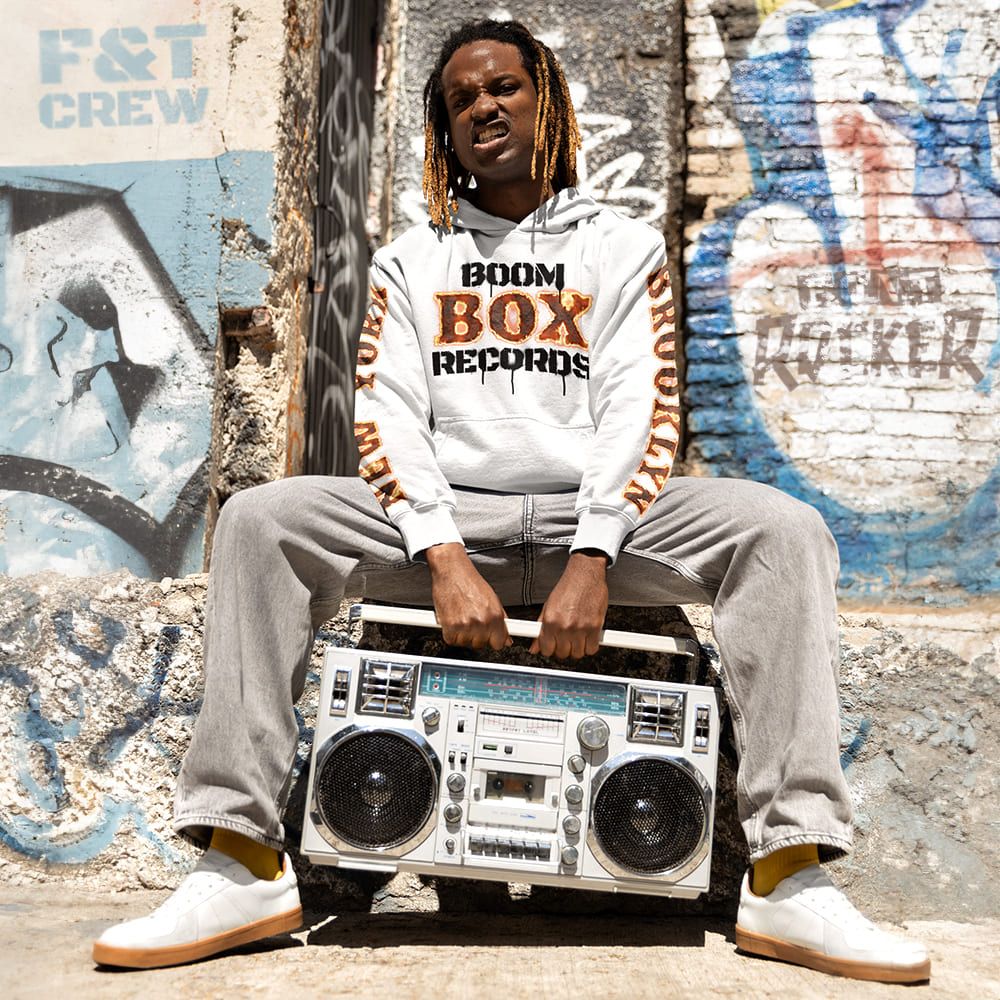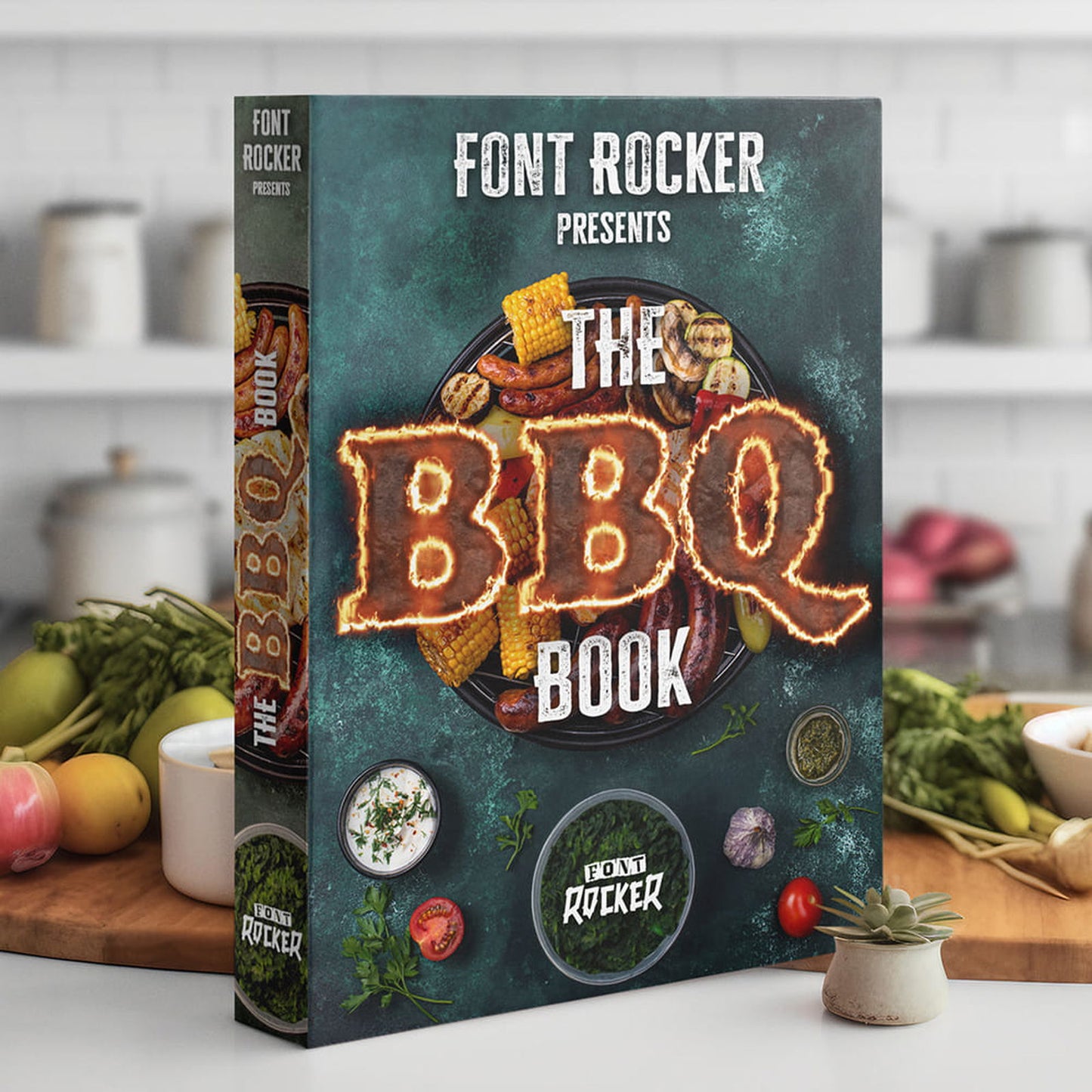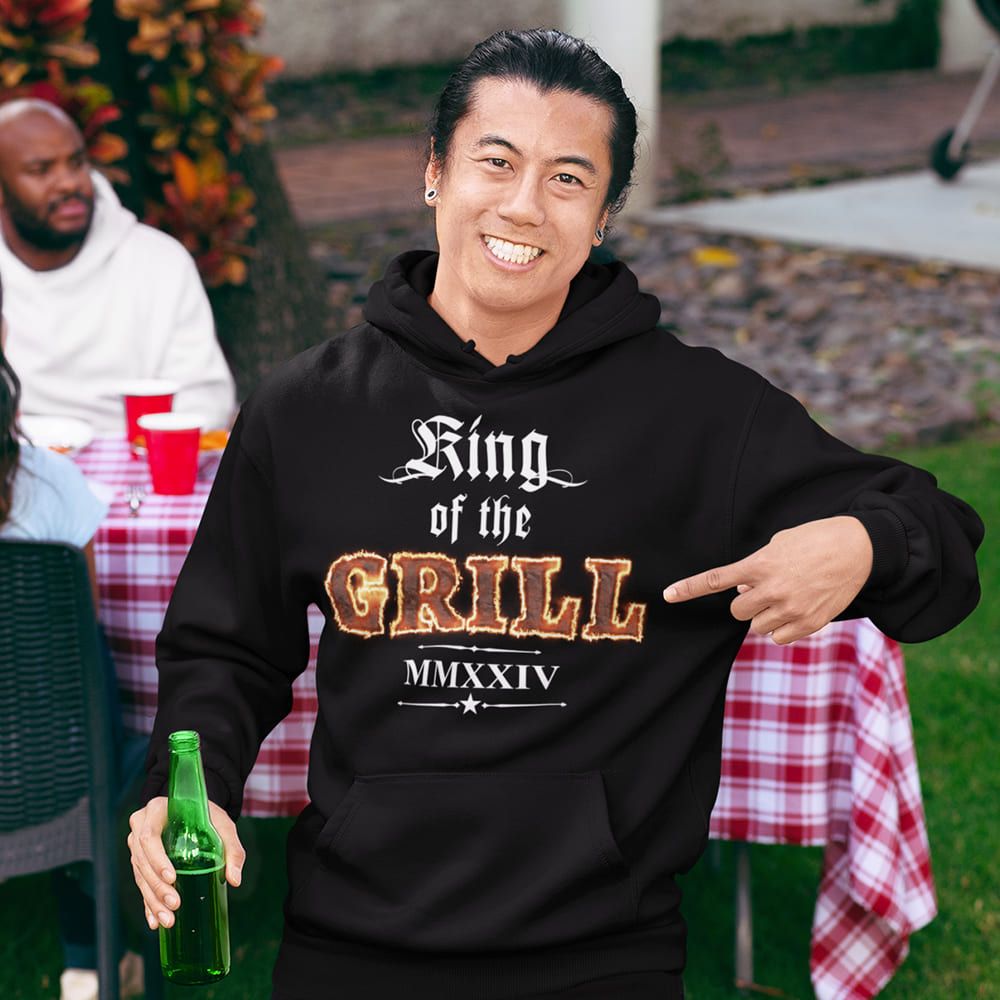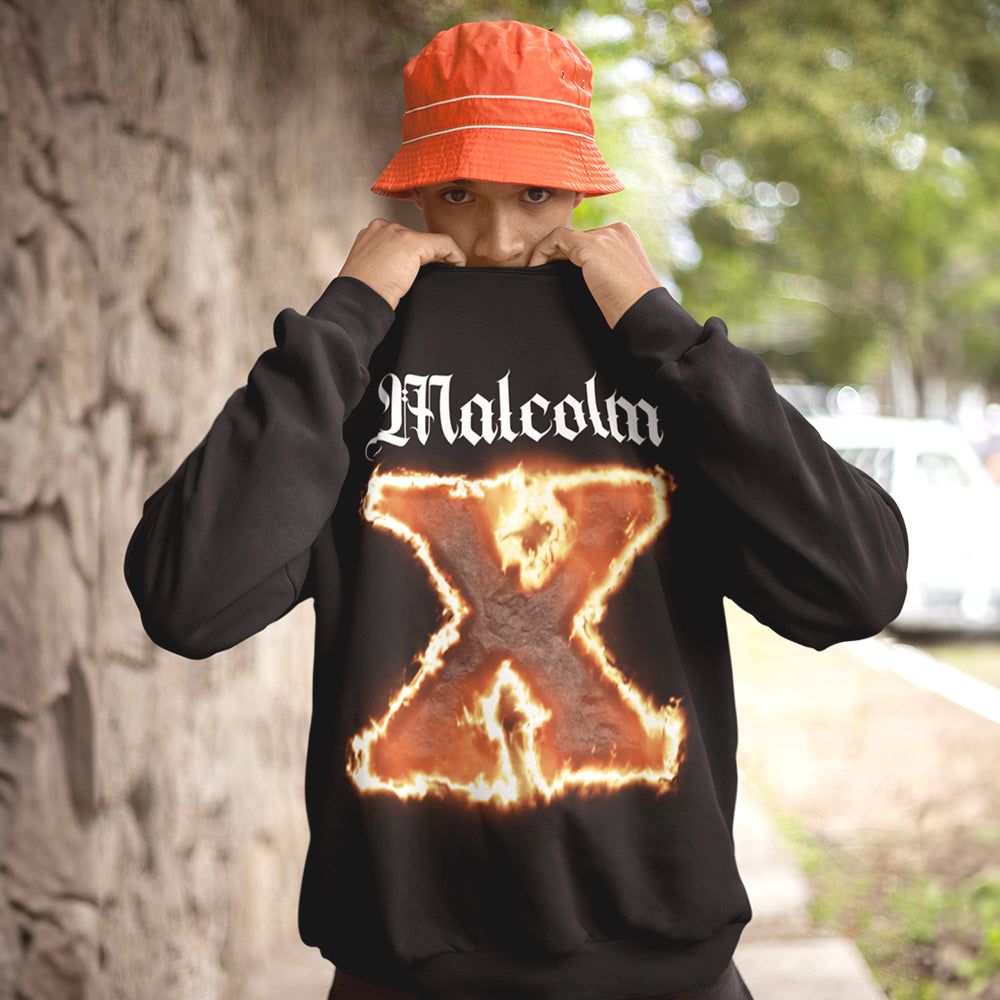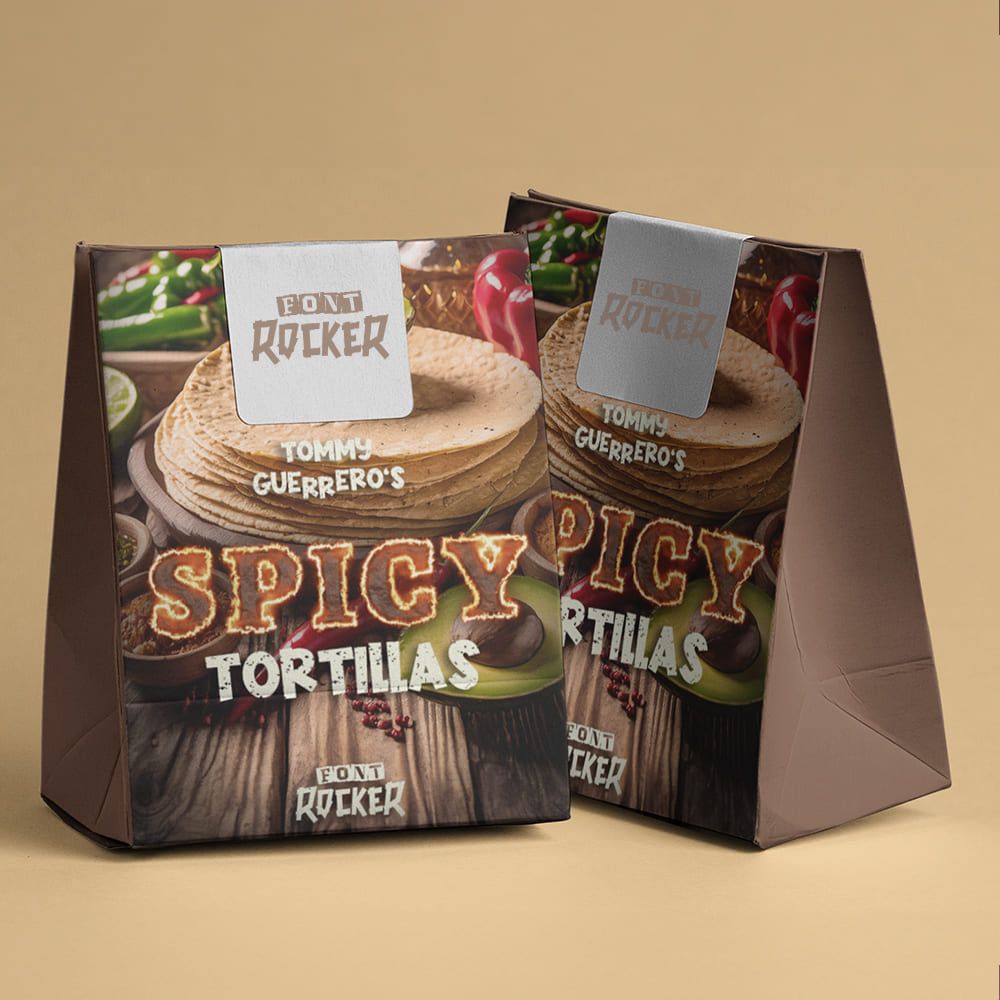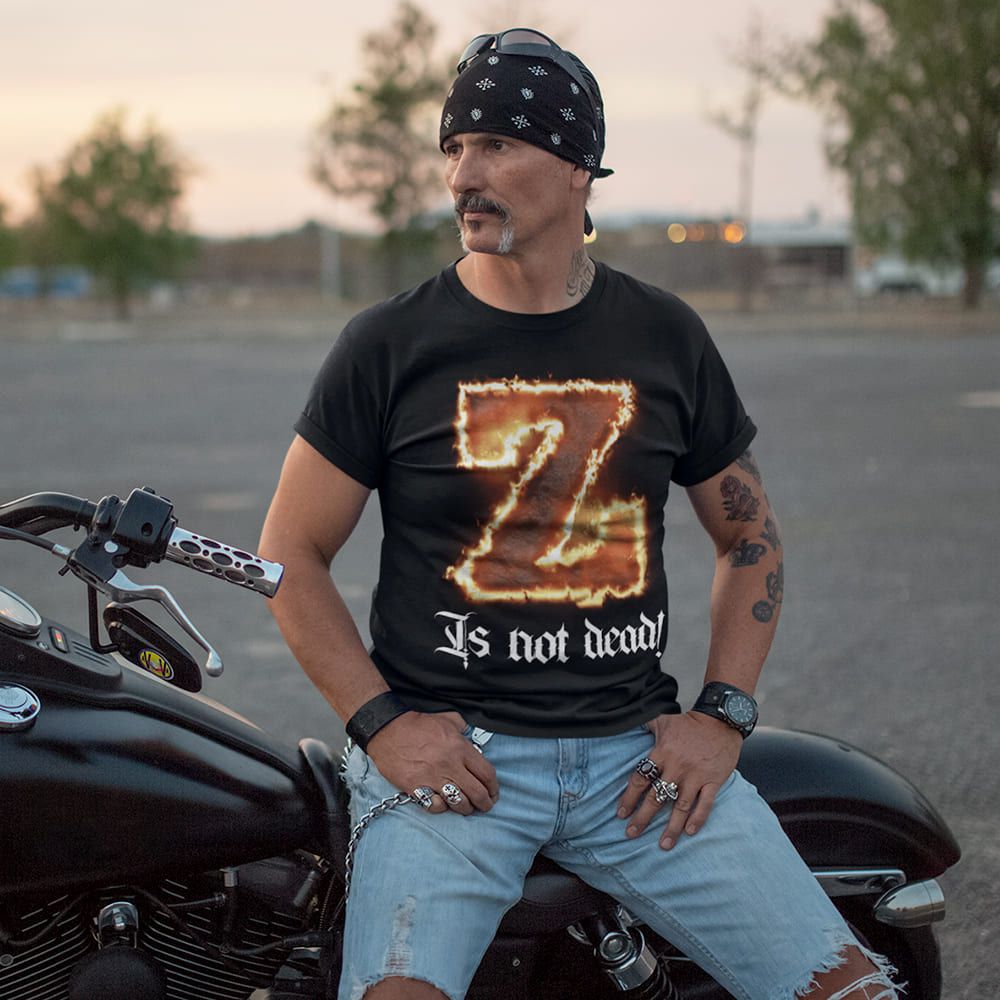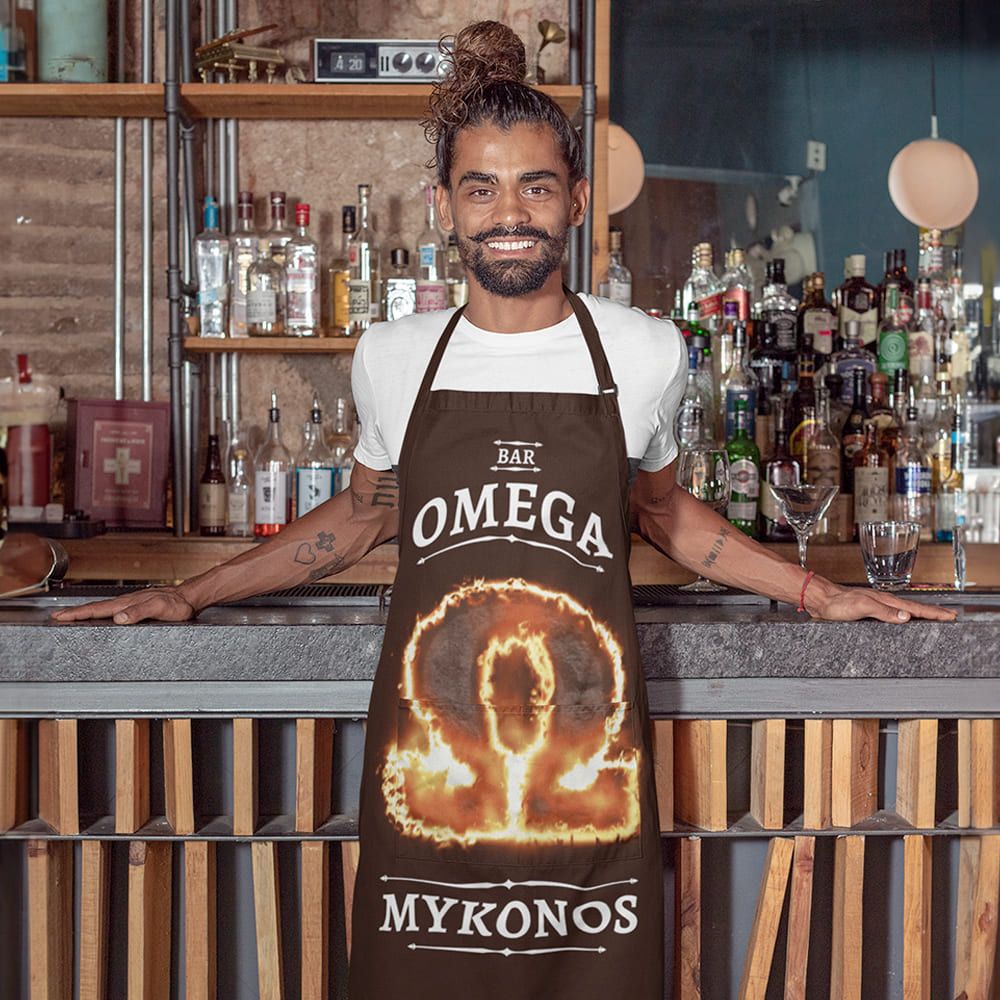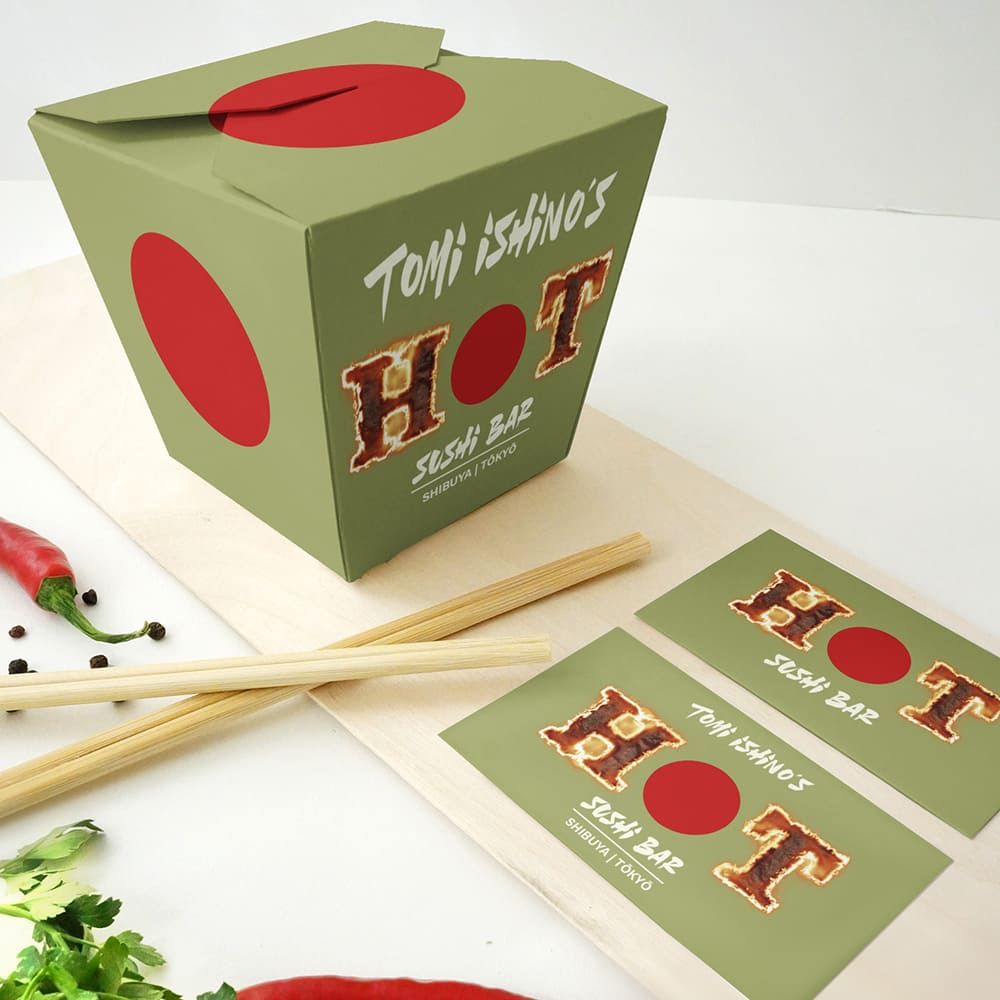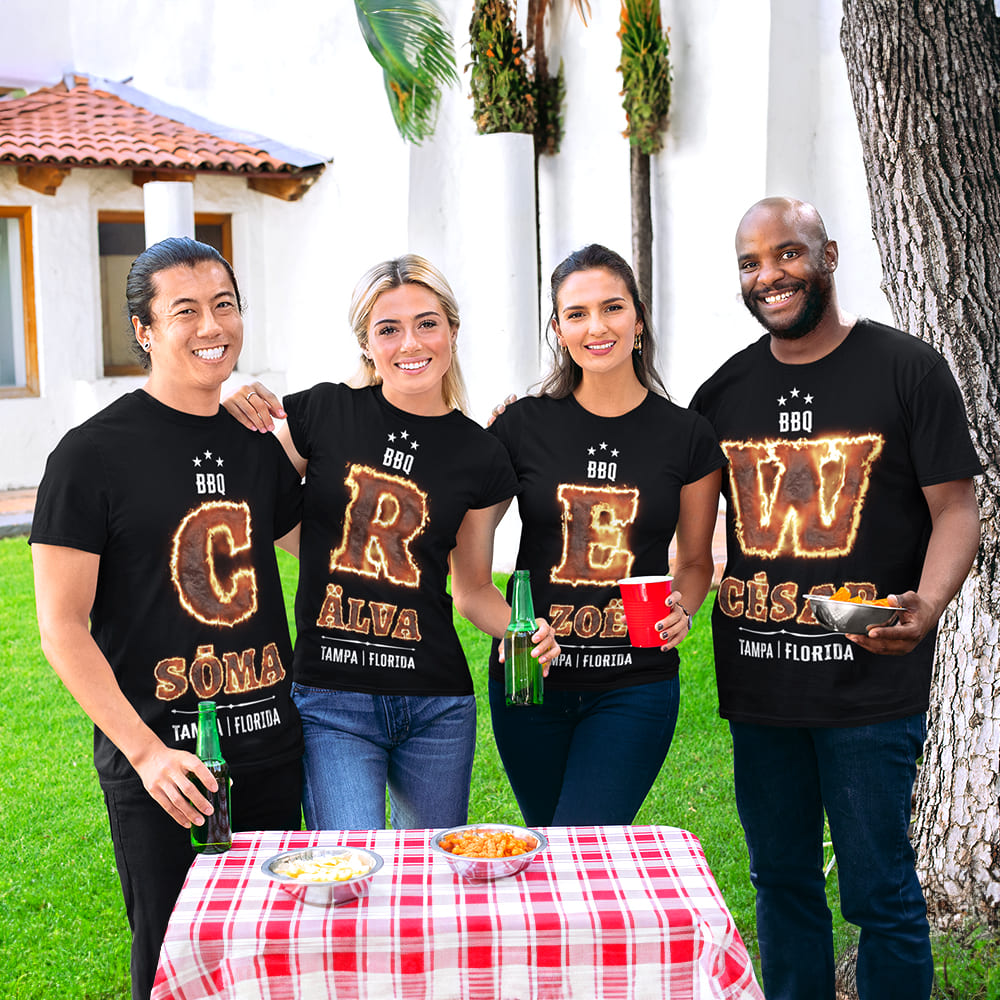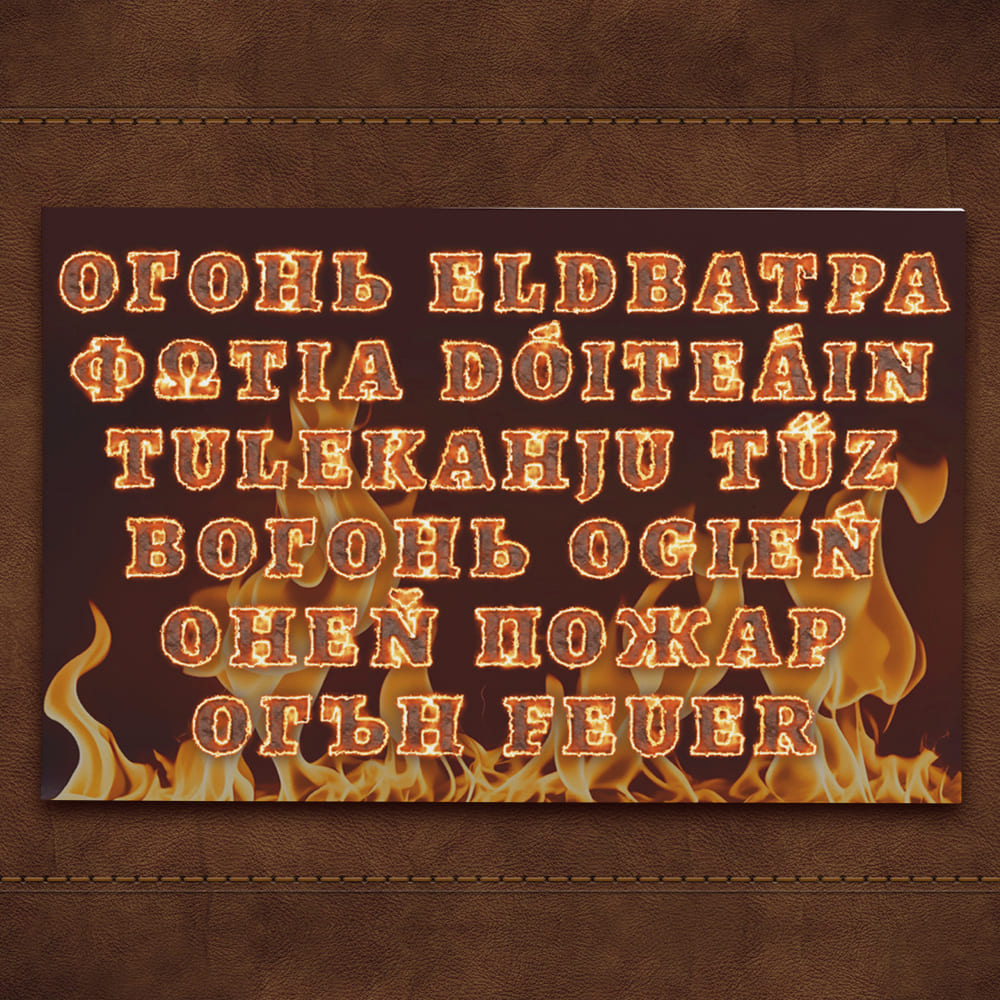
Fire Rocker Font
Wild, Blazing, Unstoppable 🔥🎸
If your design screams for raw energy, burning passion, and that true rock ’n’ roll feeling, there’s only one choice: the Fire Rocker Font! This font design shreds like a blazing guitar solo, packs the heat of hot sauce, and burns as hot as a BBQ grill on full blast. Inspired by the greatest rock and metal bands, this font delivers an unmistakable, fiery presence to any design.
Why Choose the Fire Rocker Font?
🔹 Pure rock ’n’ roll energy – Inspired by blazing stages, scorching guitar riffs, and epic festivals. A font that explodes like fireworks!
🔹 A flaming design that stands out – With dynamic shapes, glowing effects, and a bold aesthetic, this font sets every headline on fire.
🔹 Perfect for branding, events & promotions – Whether for band logos, festival posters, album covers, or social media campaigns, the Fire Rocker Font ensures your design never goes unnoticed.
Set Your Design on Fire!
Make your branding hotter than lava, louder than an amp cranked to 11, and more powerful than a guitar solo in flames. The Fire Rocker Font brings power, attitude, and pure passion to your project.
🔹 Ignite your design. Fuel the flames. Choose the Fire Rocker Font. 🔥🎸⚡️